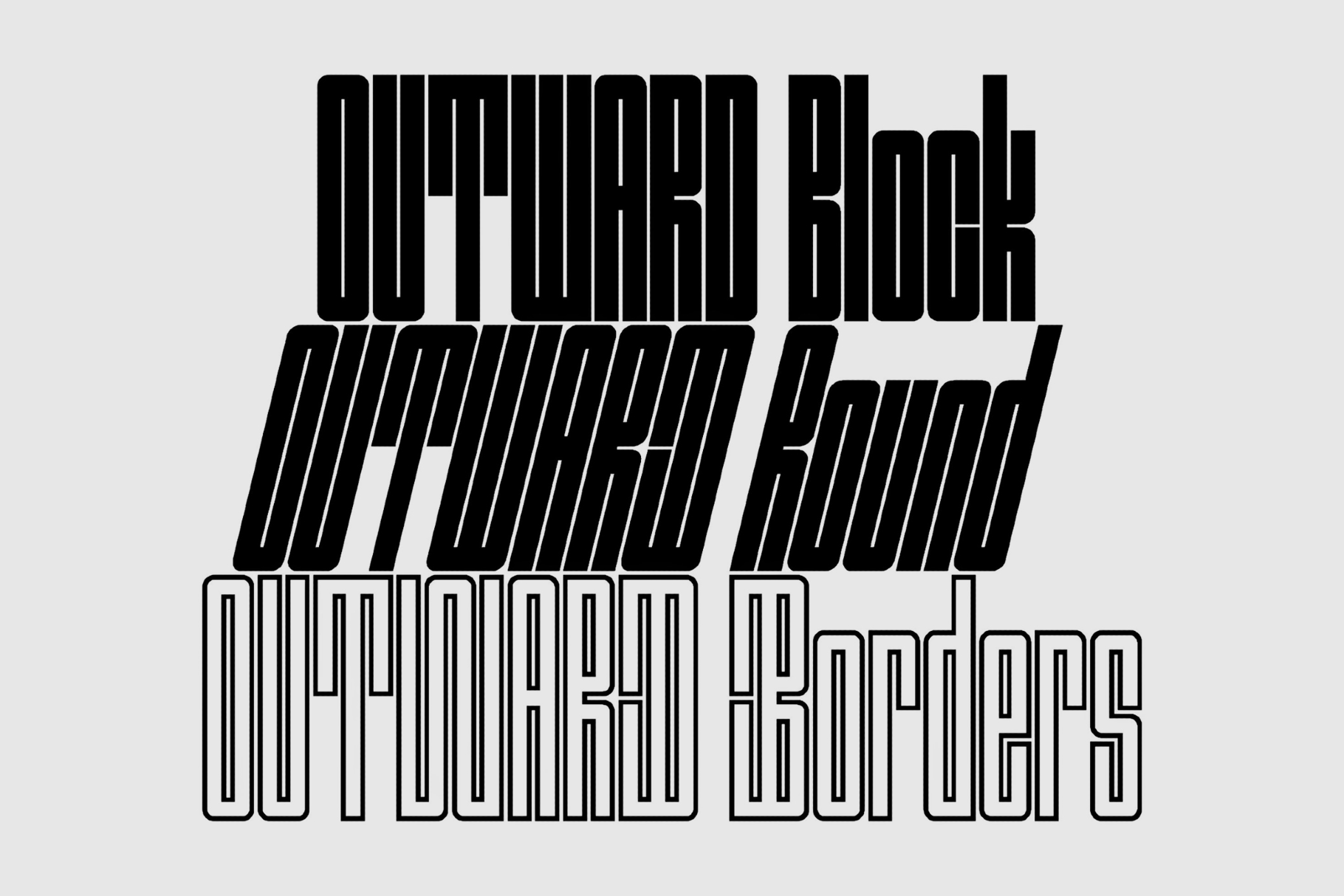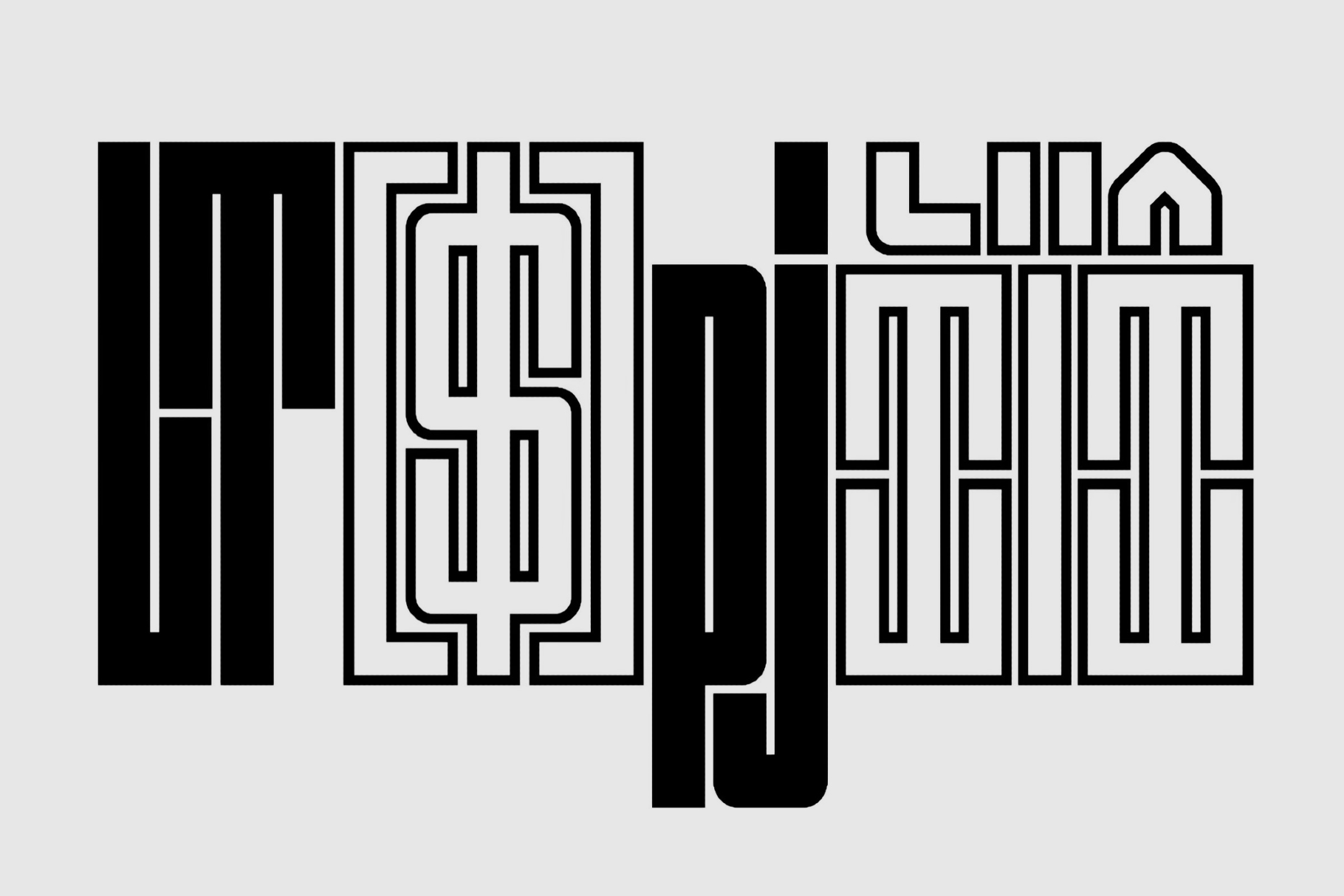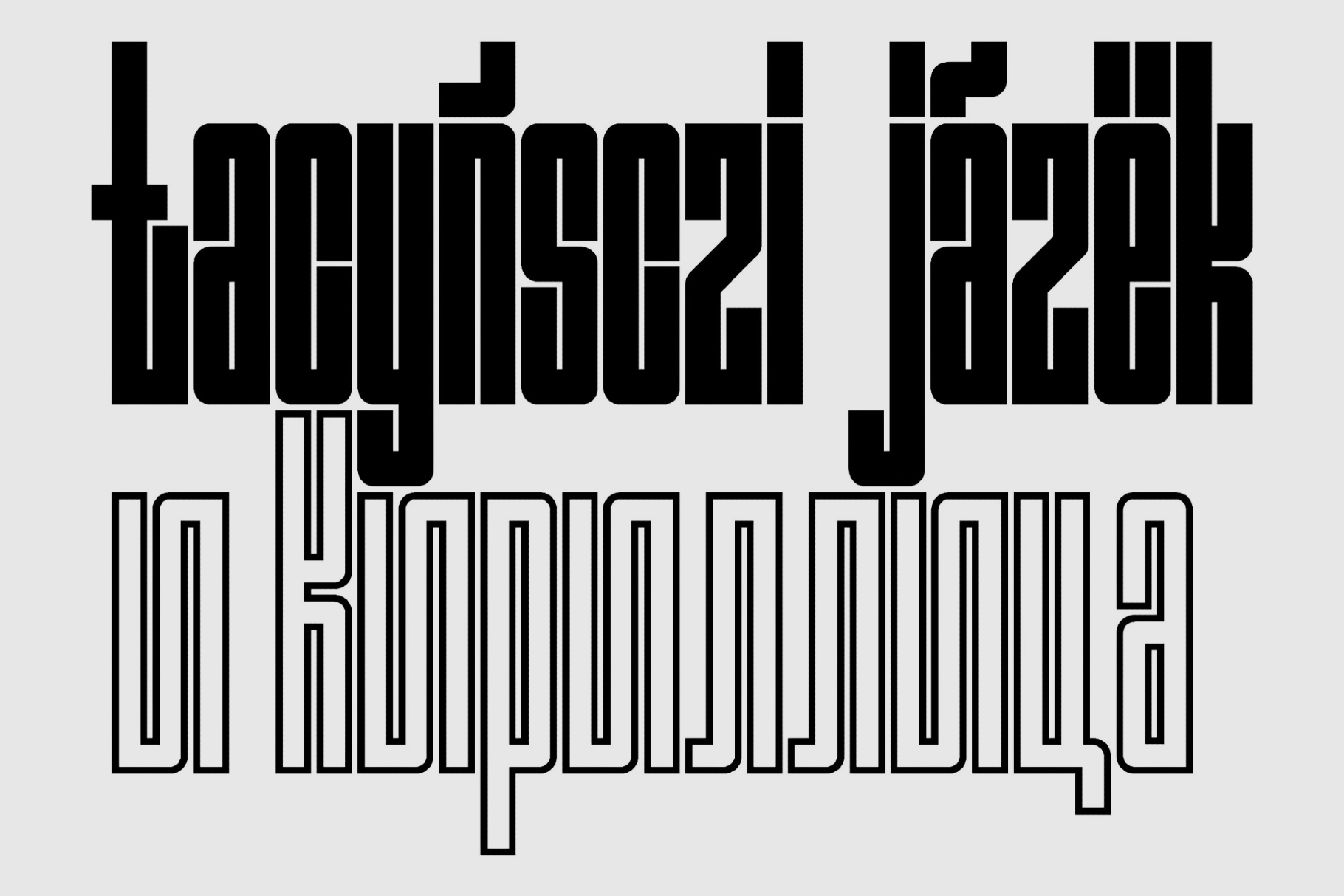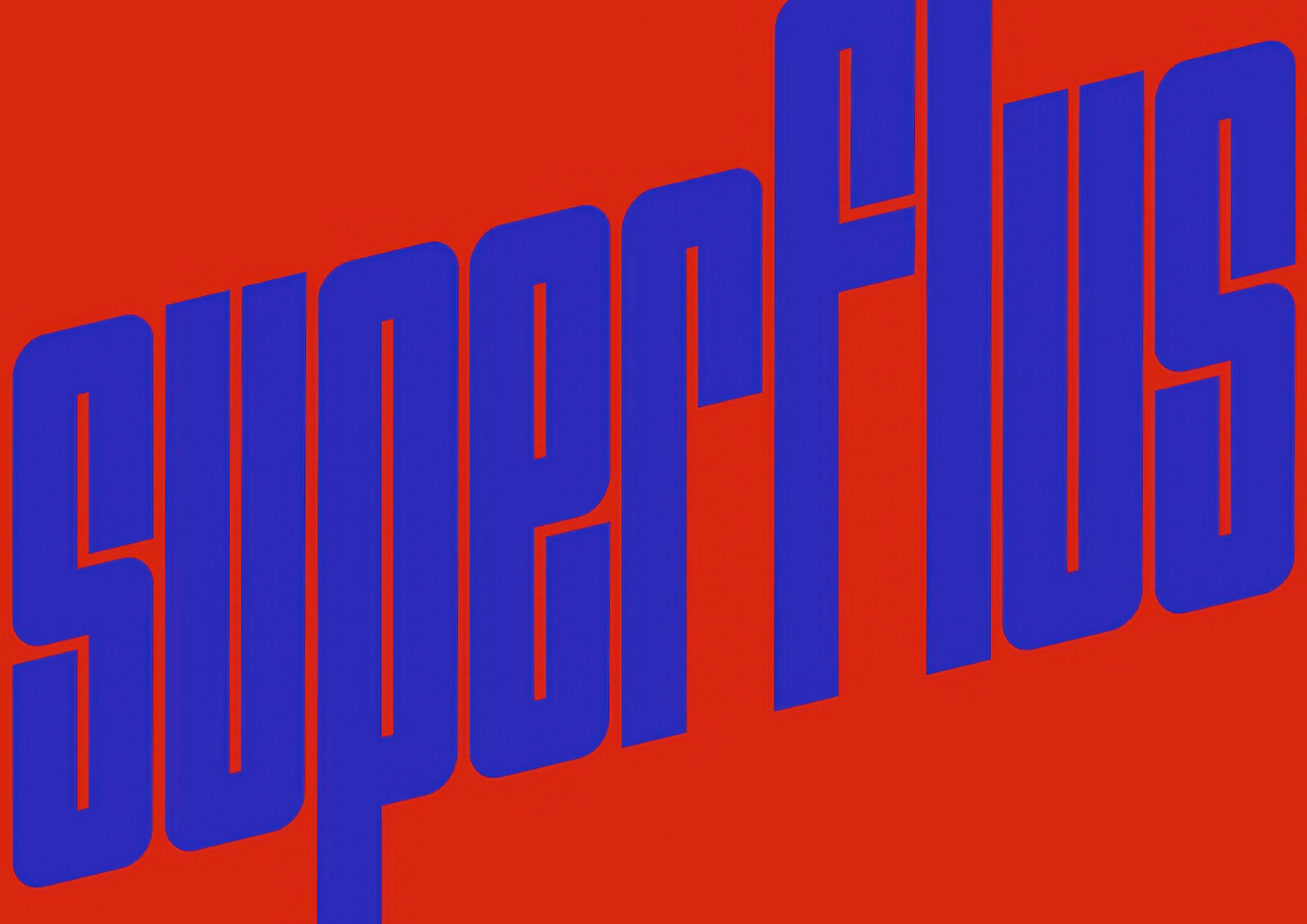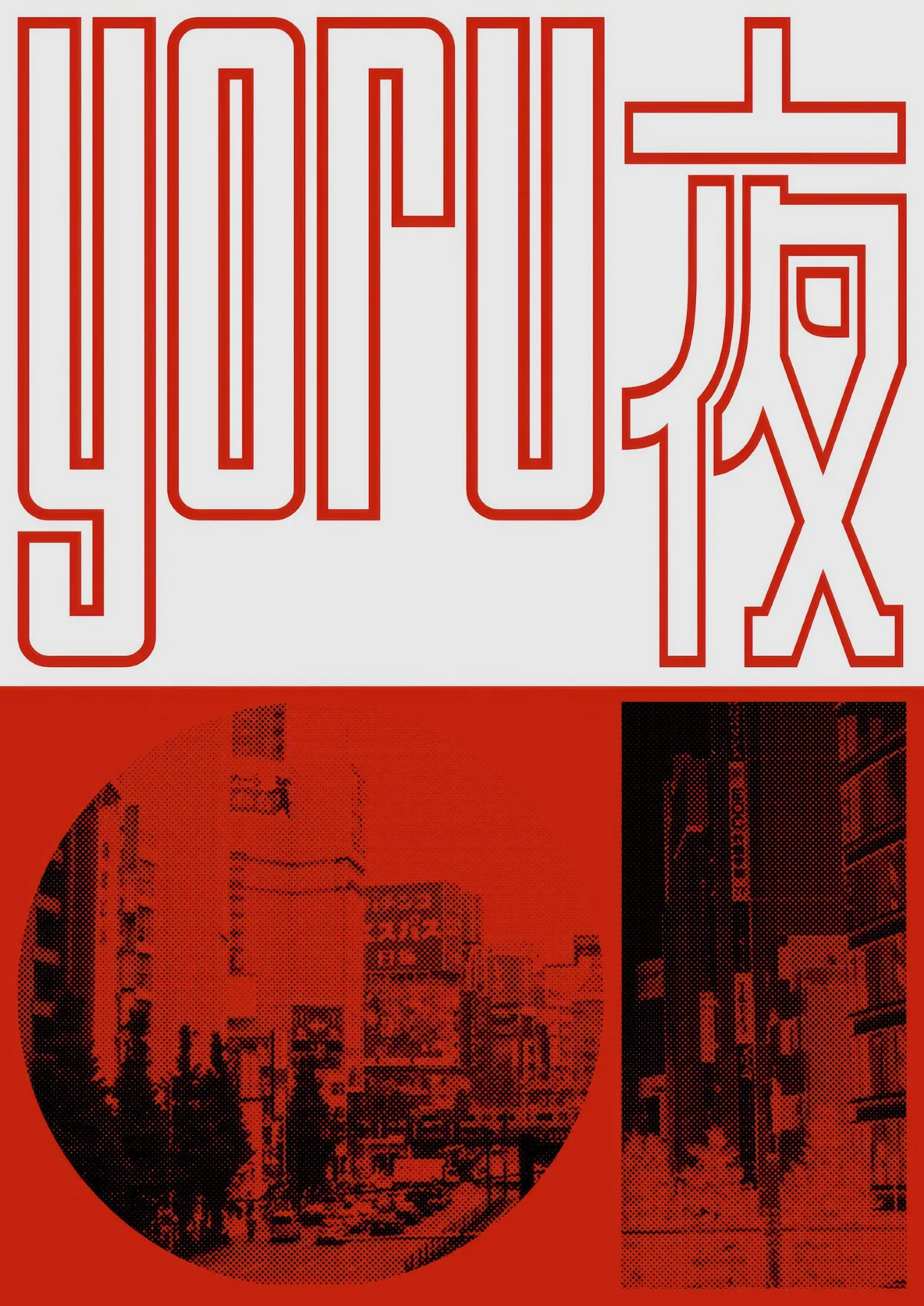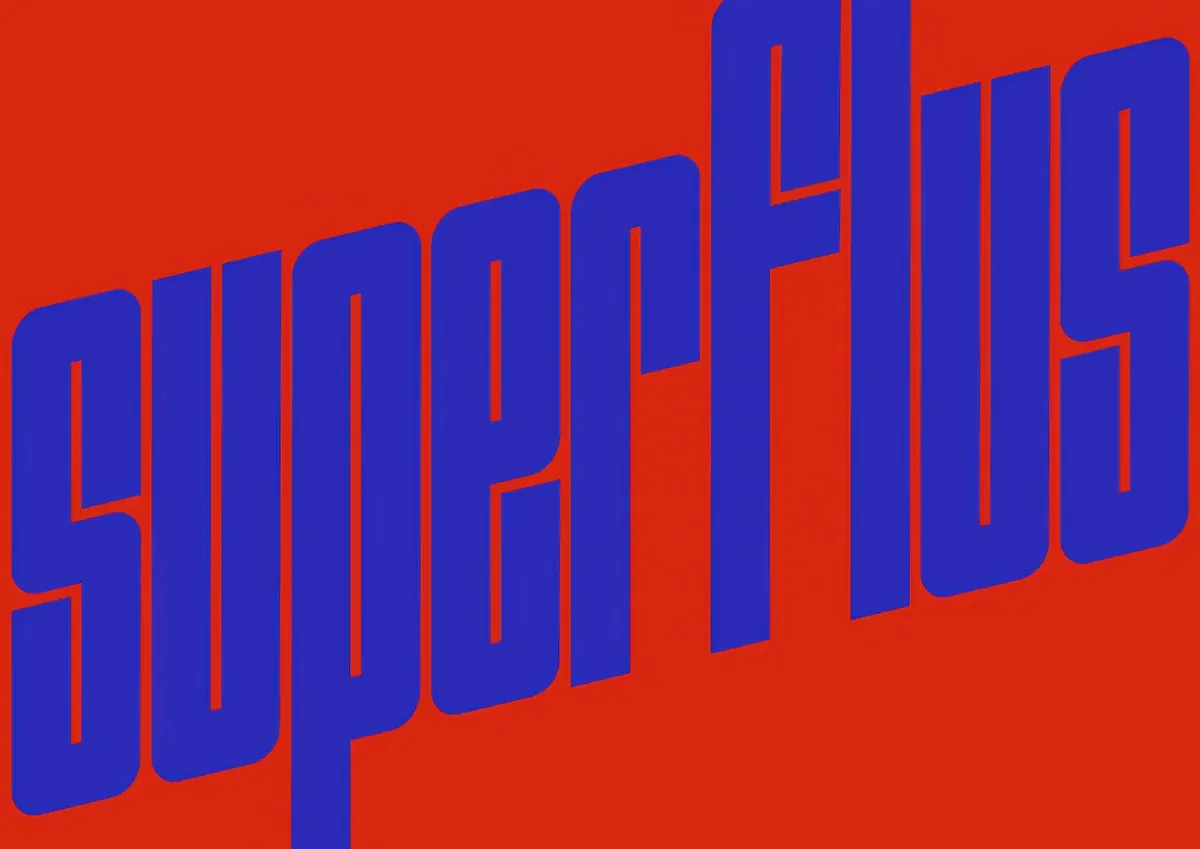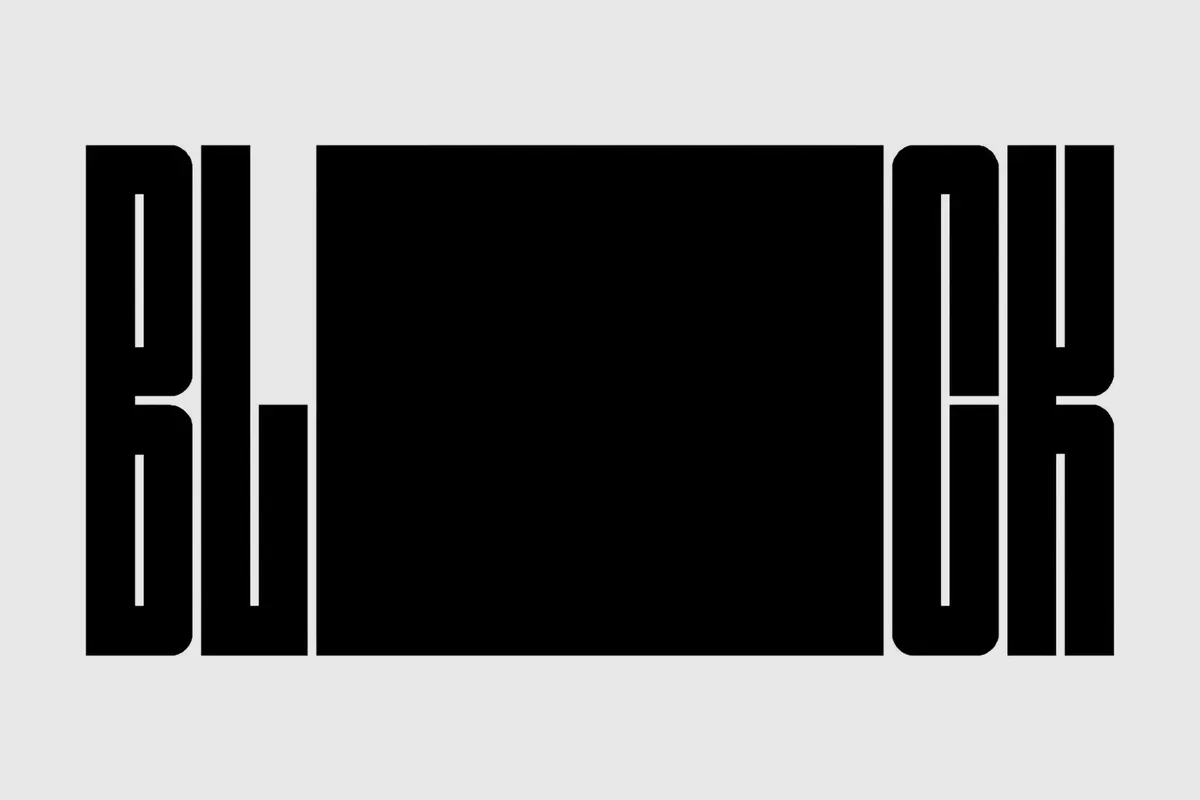
Outward Typeface
Block
Borders
Round
Outward folds the sharp geometry of mid-century wayfinding signage into a contemporary font with ultra-condensed letterforms. With three styles, it suits bold branding, exhibition posters, club flyers, editorial headlines, album covers, digital banners, motion titles, event identities, and typographic logos.
- Three styles: Regular, Bold, and Italic
- International characters with support across extended Latin and Cyrillic scripts.